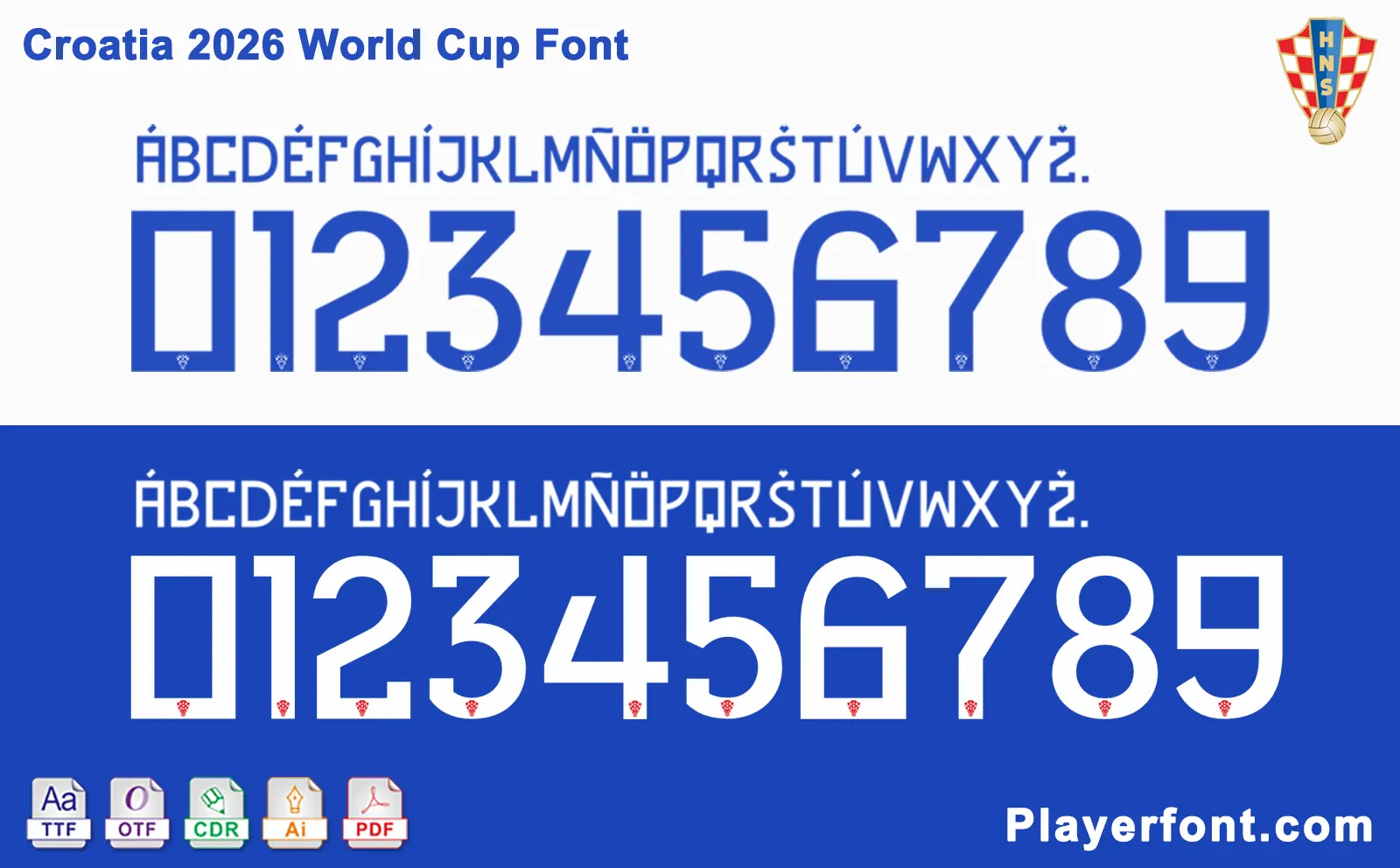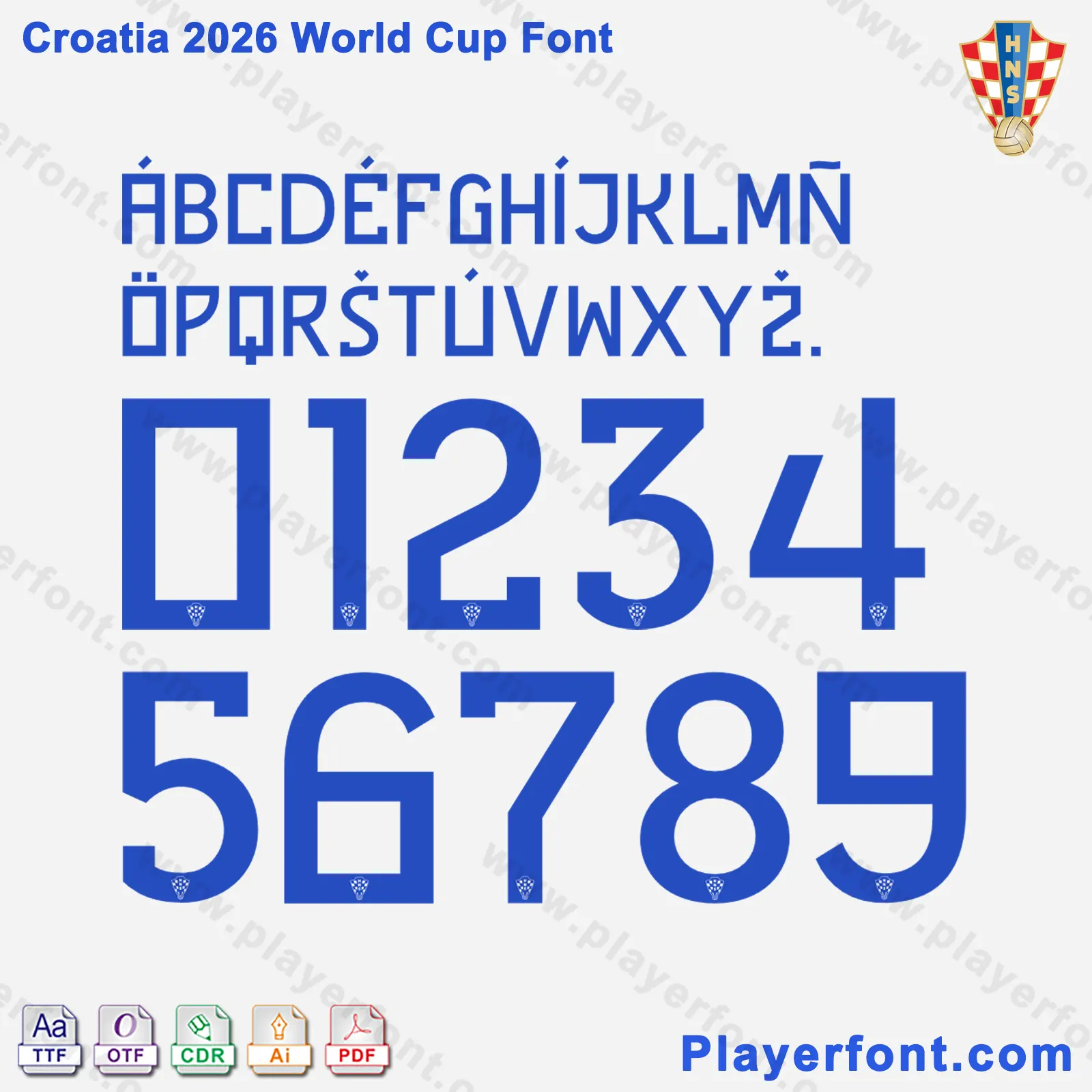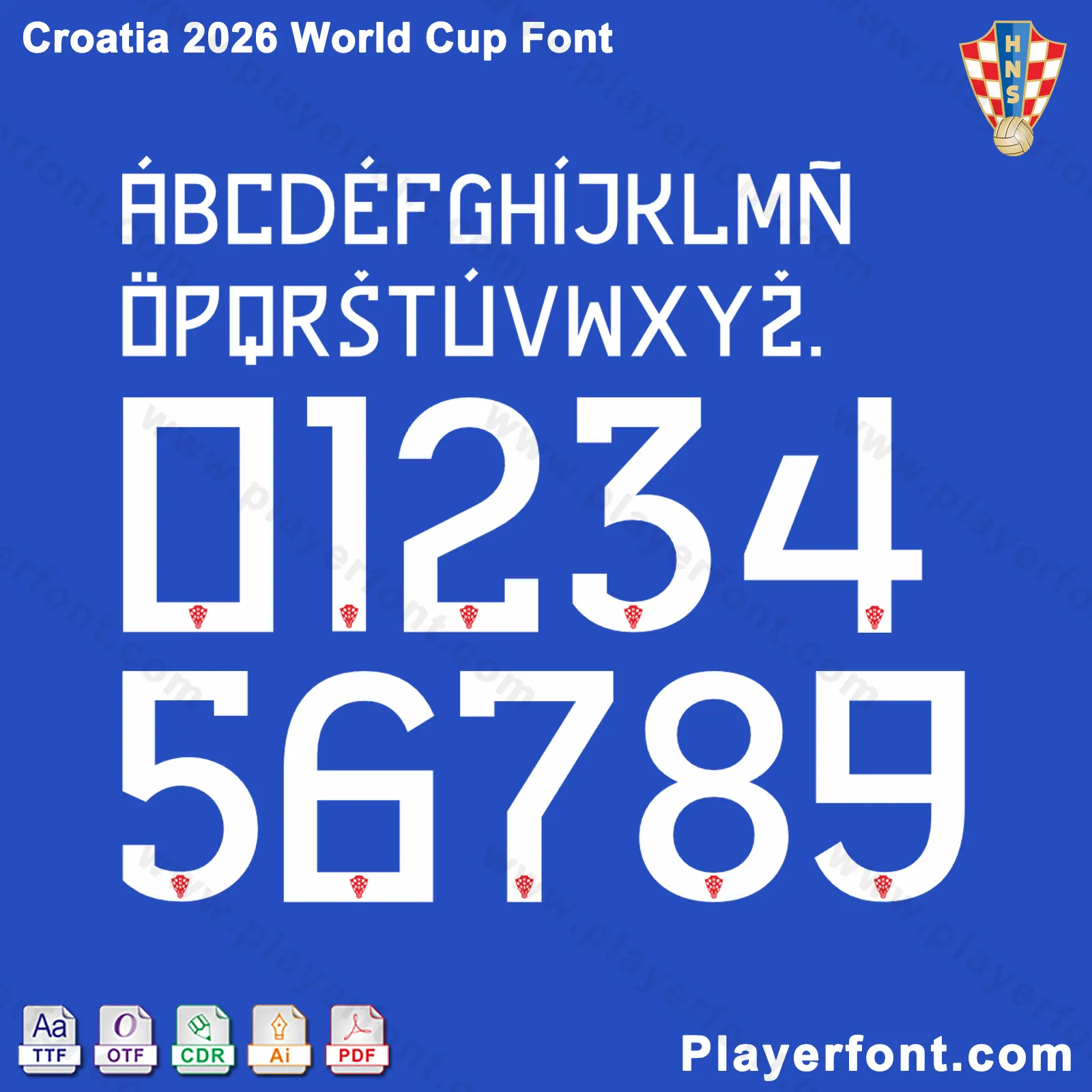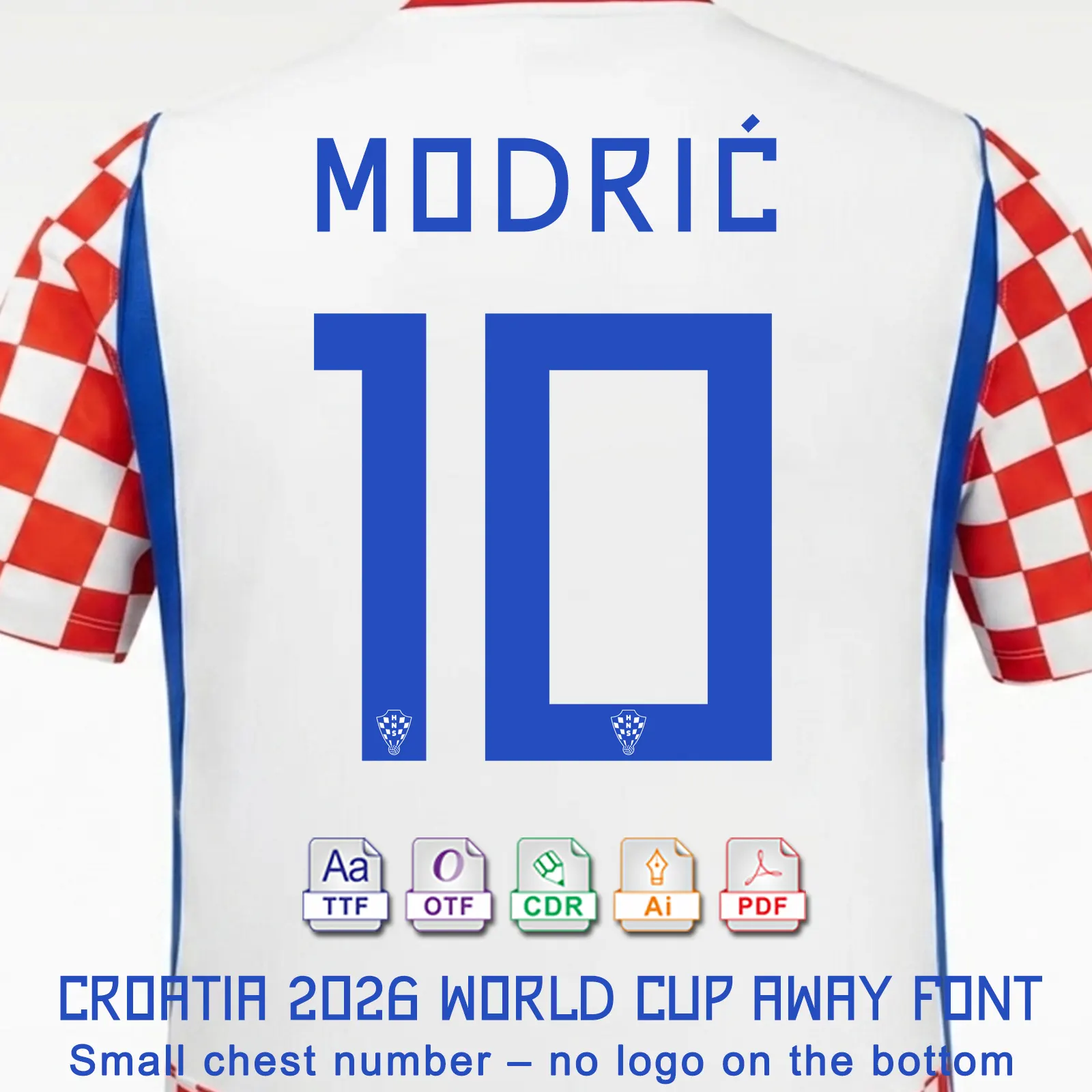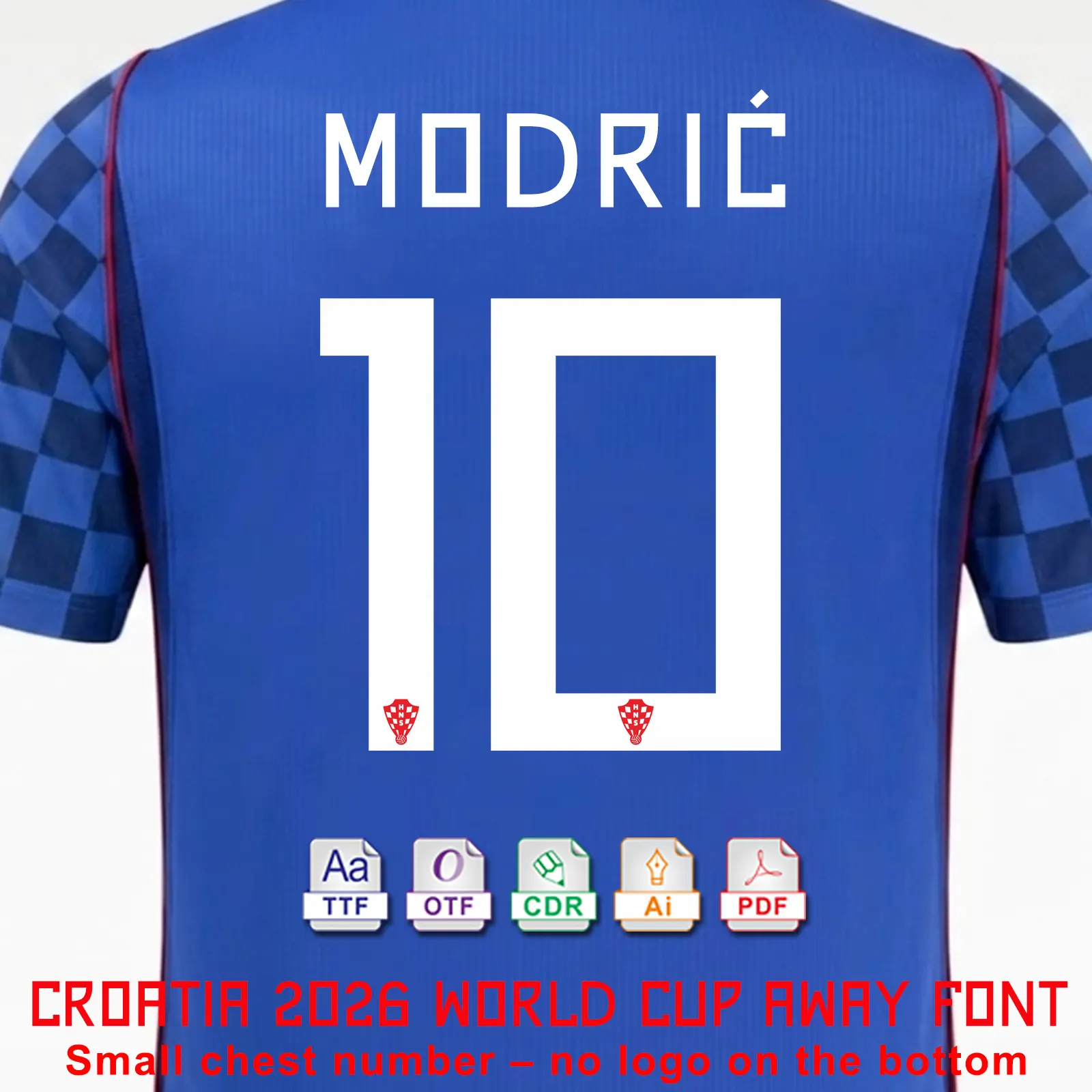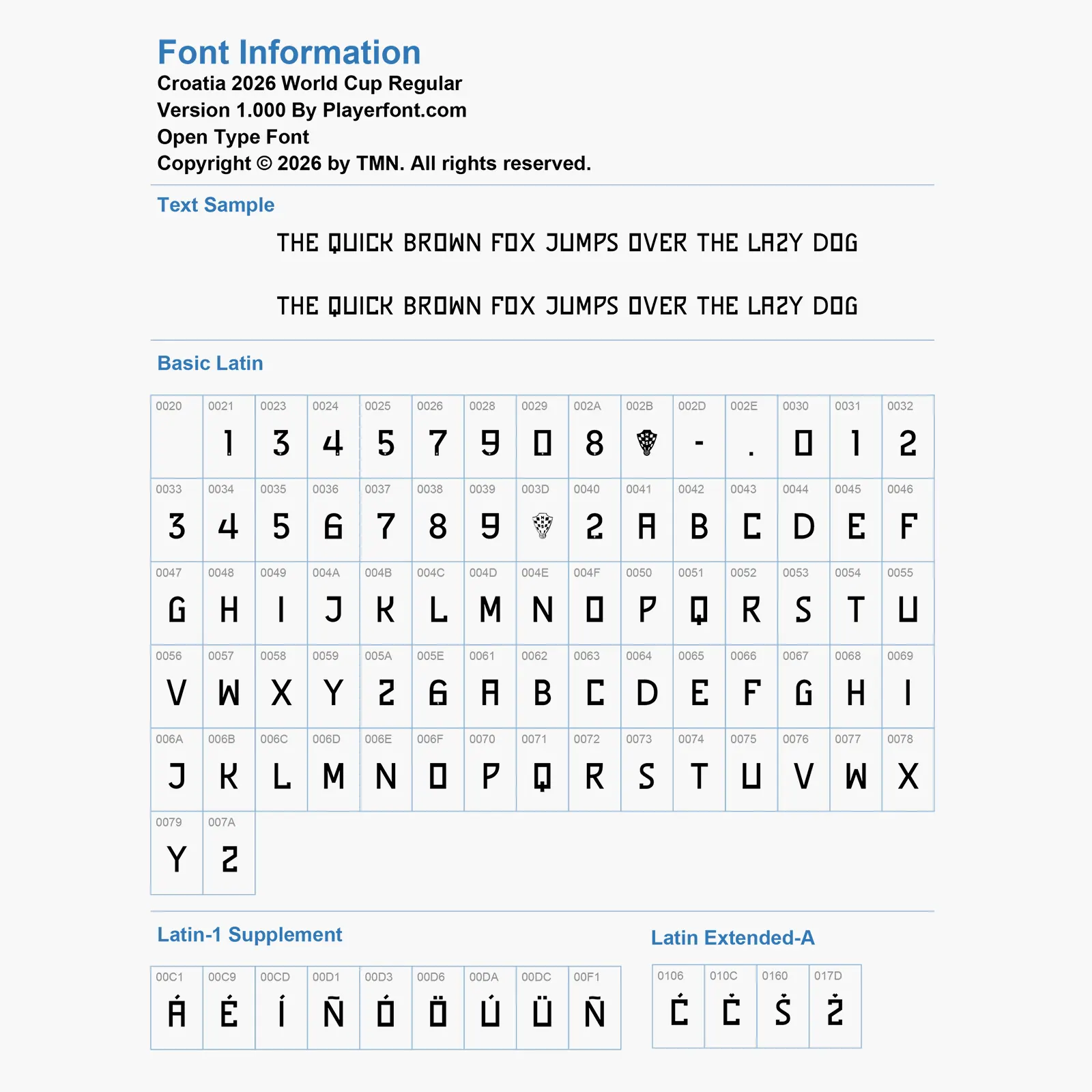
Elevate your sports design projects with the Croatia 2026 World Cup Font. This digital download provides the complete character set seen on the backs of superstars like Luka Modrić. Whether you are replicating the iconic checkered Home kit or the deep blue Away jersey, this font pack delivers professional-grade accuracy.
Full Character Set: Includes A-Z uppercase, special Croatian characters (Ć, Č, Š, Ž), and numbers 0-9 featuring the HNS Federation logo at the base.
Design: Modern, block-style typography with sharp angles.